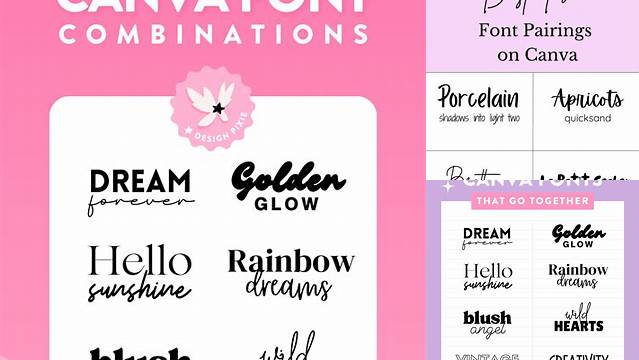
Canva Fonts: Free Font Combinations For Stunning Designs
Hey guys! Ever struggled with font pairing in Canva? You're not alone! Choosing the right fonts can make or break your design, and let's be honest, the sheer number of options can be overwhelming. But don't worry, this is the ultimate guide on Canva fonts combination free, here to rescue you from typographic turmoil. This guide dives deep into the world of font pairings, giving you the knowledge and inspiration to create stunning visuals that captivate your audience. You'll learn the principles behind effective font combinations, explore a curated list of free Canva font pairings, and discover tips and tricks for elevating your design game. Get ready to unlock the power of typography and transform your Canva creations from basic to brilliant!
Why Font Pairing Matters
Font pairing is crucial in design because it significantly impacts how your message is perceived and understood. The fonts you choose create a visual hierarchy that guides the viewer's eye, emphasizes key information, and sets the overall tone and mood of your design. A well-executed font pairing can enhance readability, ensuring that your audience can easily consume your content. It also adds visual interest, making your designs more engaging and memorable. Think of fonts as the voice of your design – they convey personality and emotion. A playful script font paired with a bold sans-serif, for example, might be perfect for a children's brand, while a classic serif font paired with a clean sans-serif would be more suitable for a professional business. In essence, Canva fonts combination free can be a game-changer, but choosing them thoughtfully is key to communicating effectively and creating a lasting impression. A poor font pairing, on the other hand, can lead to confusion, detract from your message, and even make your design look unprofessional. Imagine trying to read a lengthy document in a decorative, hard-to-read font – it would be frustrating, right? Similarly, if you clash fonts that don't complement each other, your design might appear chaotic and disorganized. This is why understanding the principles of font pairing is essential for anyone involved in visual communication, whether you're a seasoned designer or just starting out with Canva. By mastering font combinations, you can ensure that your designs not only look beautiful but also effectively convey your intended message.
Understanding Font Personalities
Before diving into specific font pairings, it's important to understand that each font has its unique personality. Fonts aren't just letters; they evoke emotions, convey a particular style, and set the tone for your design. There are primarily four main font categories: Serif, Sans-serif, Script, and Display fonts. Serif fonts, characterized by the small strokes or "feet" at the end of the letterforms, often convey a sense of tradition, authority, and elegance. Think of classic fonts like Times New Roman or Georgia. These fonts are excellent for body text, as their serifs help guide the eye across the page, making them highly readable. However, they can also be used for headings to add a touch of sophistication. Sans-serif fonts, on the other hand, lack these serifs and have a cleaner, more modern appearance. Fonts like Helvetica, Arial, and Open Sans fall into this category. Sans-serif fonts are often associated with simplicity, clarity, and contemporary design. They work well for both headings and body text, especially in digital formats, as they maintain their legibility on screens. Script fonts mimic the flowing strokes of handwriting and add a touch of personality and flair to designs. They can range from elegant and formal scripts to casual and playful ones. However, script fonts should be used sparingly, primarily for headings or short phrases, as they can be difficult to read in large blocks of text. Display fonts are the attention-grabbers of the font world. These are decorative fonts designed to make a statement and are often used for headlines, logos, or other prominent elements. Display fonts come in a wide variety of styles, from bold and impactful to quirky and whimsical. Like script fonts, they should be used judiciously to avoid overwhelming the design. By recognizing these different font personalities, you can start to make informed decisions about which fonts will best suit your design's purpose and message. This understanding forms the foundation for creating harmonious and effective font pairings.
Principles of Effective Font Combination
Creating effective Canva fonts combination free involves more than just picking two fonts you like. There are underlying principles that guide successful pairings, ensuring that your fonts work together harmoniously to enhance your design. The primary goal is to create a visual hierarchy that guides the viewer's eye and makes your content easy to read and understand. One of the most fundamental principles is contrast. Contrast is key to creating visual interest and distinguishing between different elements in your design. This can be achieved by pairing fonts with different weights (e.g., a bold heading with a regular body text), different styles (e.g., a serif heading with a sans-serif body text), or different personalities (e.g., an elegant script with a clean sans-serif). However, it's essential to strike a balance – too much contrast can be jarring, while too little can make your design look monotonous. Another crucial principle is hierarchy. Your font choices should help establish a clear hierarchy of information, making it easy for the viewer to understand what's most important. Typically, headings should be larger and bolder than body text, and subheadings should be distinct from both. This can be achieved by using different font sizes, weights, or styles. For example, you might use a bold serif font for headings, a lighter sans-serif font for subheadings, and a regular sans-serif font for body text. Readability is another paramount consideration. While it's tempting to choose visually striking fonts, it's crucial to ensure that your text is easy to read, especially for body text. Avoid using overly decorative fonts or very light weights for large blocks of text, as these can strain the reader's eyes. Stick to classic, readable fonts like Open Sans, Lato, or Roboto for body text, and save the more decorative fonts for headings or shorter phrases. Consistency is also vital for creating a professional and cohesive design. It's generally best to limit your font choices to two or three fonts per design. Using too many fonts can make your design look cluttered and confusing. Choose a primary font for headings and a secondary font for body text, and then stick to these choices throughout your design. You can also use variations within the same font family (e.g., different weights or styles) to add visual interest without introducing additional fonts. By understanding and applying these principles, you can create font pairings that are not only visually appealing but also effective in communicating your message.
Top Free Canva Font Combinations
Now for the exciting part! Let's explore some fantastic free Canva fonts combination free that you can start using in your designs right away. These pairings are tried and tested, offering a blend of aesthetics and readability that will elevate your creations.
1. Open Sans (Headings) + Montserrat (Body)
This is a classic and versatile pairing that works well for a wide range of designs. Open Sans is a clean and modern sans-serif font that's highly readable, making it an excellent choice for headings. Montserrat, another sans-serif font, has a slightly more geometric feel and pairs beautifully with Open Sans for body text. The combination is clean, contemporary, and perfect for websites, presentations, and marketing materials.
2. Playfair Display (Headings) + Montserrat (Body)
If you're looking for a touch of elegance, this pairing is a winner. Playfair Display is a sophisticated serif font with high contrast and beautiful curves, making it ideal for headings. Montserrat, again, serves as a reliable and readable sans-serif for body text. This combination is perfect for designs that need a touch of class, such as invitations, brochures, or branding materials.
3. Bebas Neue (Headings) + Lato (Body)
Bebas Neue is a tall and condensed sans-serif font that's bold and impactful, making it a great choice for headlines. Lato, a clean and friendly sans-serif, complements Bebas Neue perfectly for body text. This pairing is modern, clean, and works well for posters, social media graphics, and websites.
4. Oswald (Headings) + Roboto (Body)
Oswald is a versatile sans-serif font with a slightly condensed style, making it great for headings and subheadings. Roboto, a widely used sans-serif font, is highly readable and works well for body text. This combination is clean, professional, and suitable for a variety of design projects, including presentations, reports, and website content.
5. Merriweather (Headings) + Open Sans (Body)
Merriweather is a classic serif font designed for on-screen readability, making it a great choice for headings and body text. Pairing it with Open Sans, a clean and neutral sans-serif, creates a balanced and readable combination. This pairing is ideal for blog posts, articles, and websites.
6. Raleway (Headings) + Roboto (Body)
Raleway is an elegant sans-serif font with a distinctive style, making it a great choice for headings and subheadings. Roboto, with its clean and modern design, provides excellent readability for body text. This combination is sophisticated and versatile, suitable for branding materials, websites, and marketing collateral.
These are just a few examples, and the possibilities are endless. The key is to experiment and find pairings that resonate with your design style and message. Remember to consider the overall tone and mood you want to convey and choose fonts that reflect that.
Mastering Canva fonts combination free is an essential skill for anyone looking to create visually compelling designs. By understanding the principles of font pairing, exploring different font personalities, and utilizing Canva's features effectively, you can transform your designs from ordinary to extraordinary. Remember to prioritize contrast, hierarchy, and readability, and don't be afraid to experiment and find your own unique style. With the knowledge and tips shared in this guide, you're well-equipped to tackle any design project with confidence and create typography that truly shines. So go ahead, unleash your creativity, and make your designs stand out with beautiful font combinations!